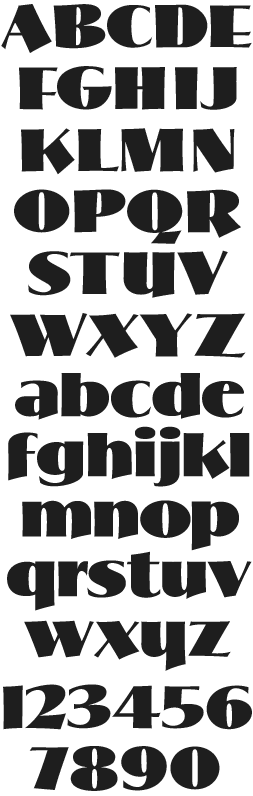
LHF Wade Dynamic Sign writer Arthur Vanson sends us another casual inspired by Cecil Wade. Wade Dynamic gives off a friendly vibe without appearing cartoonish.